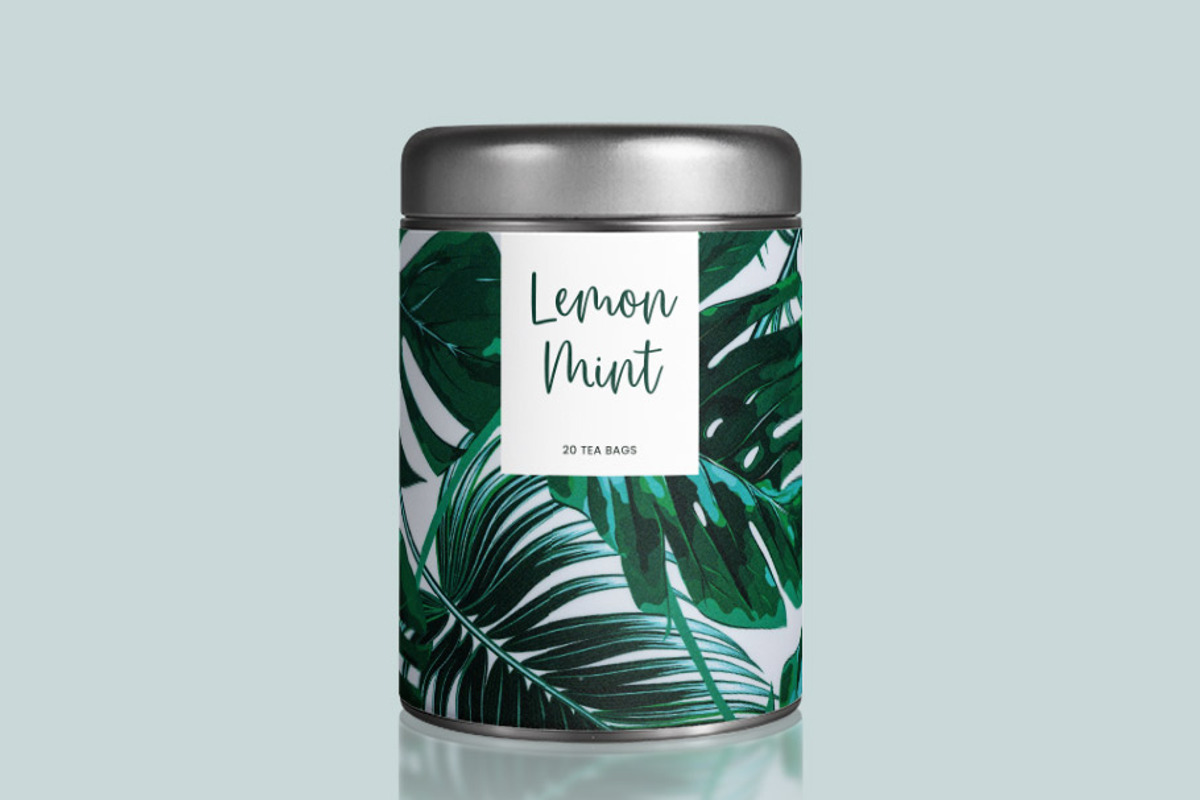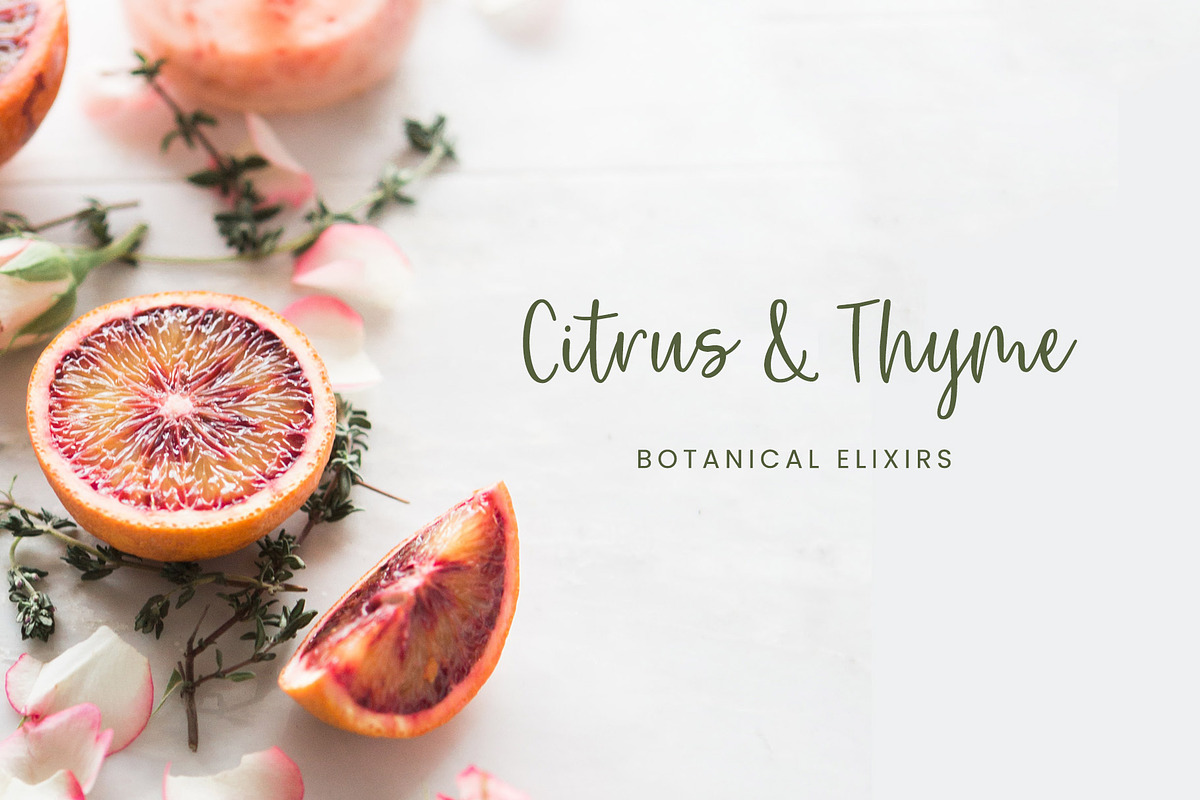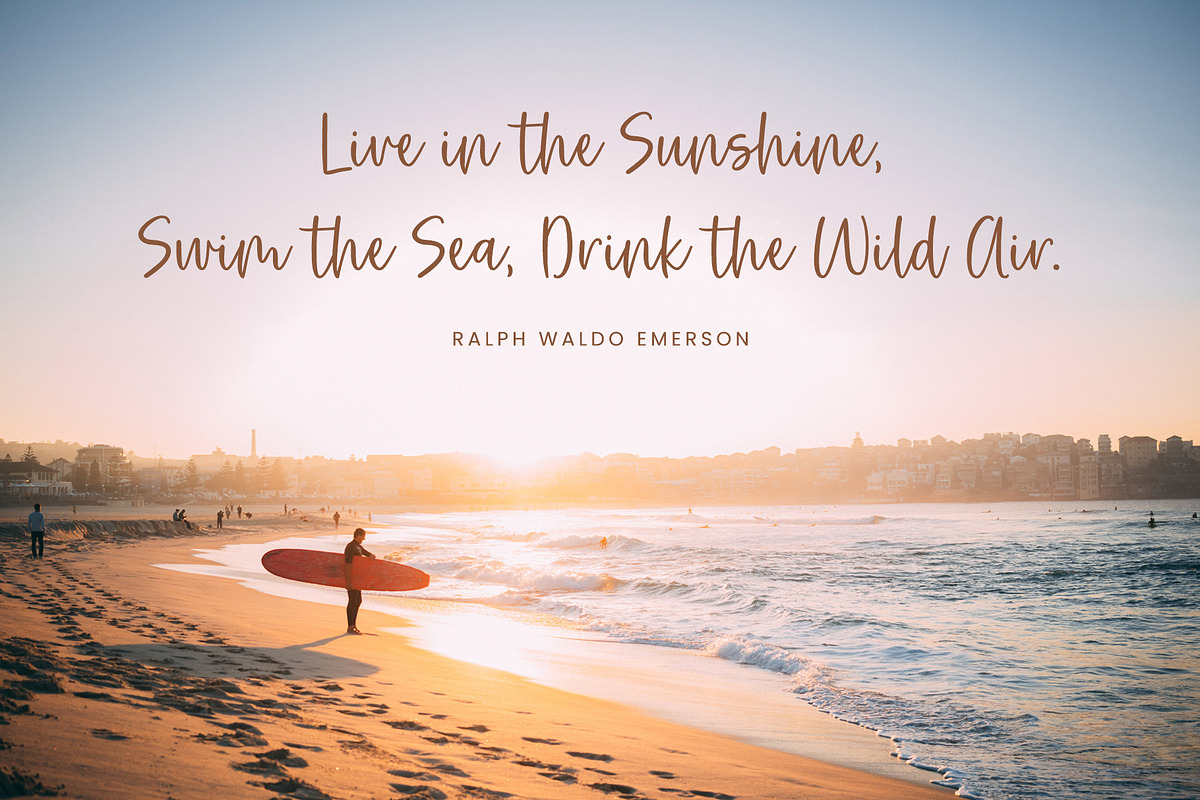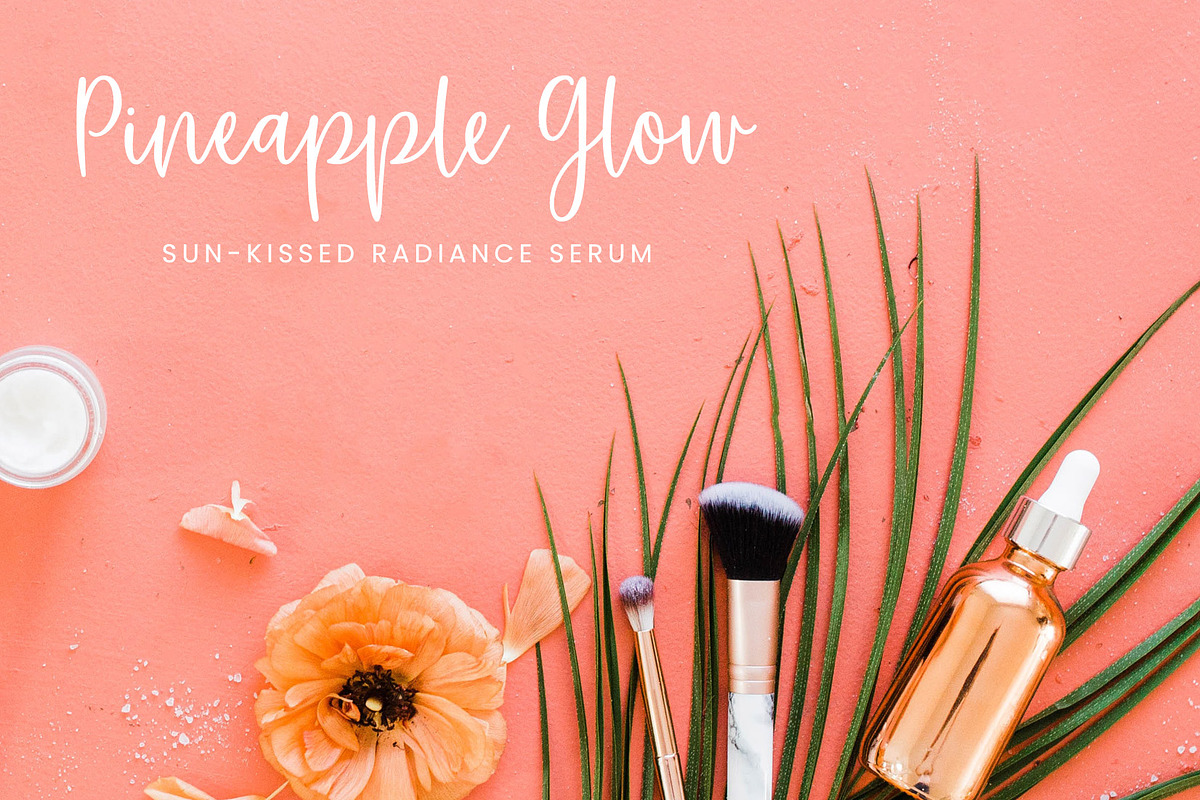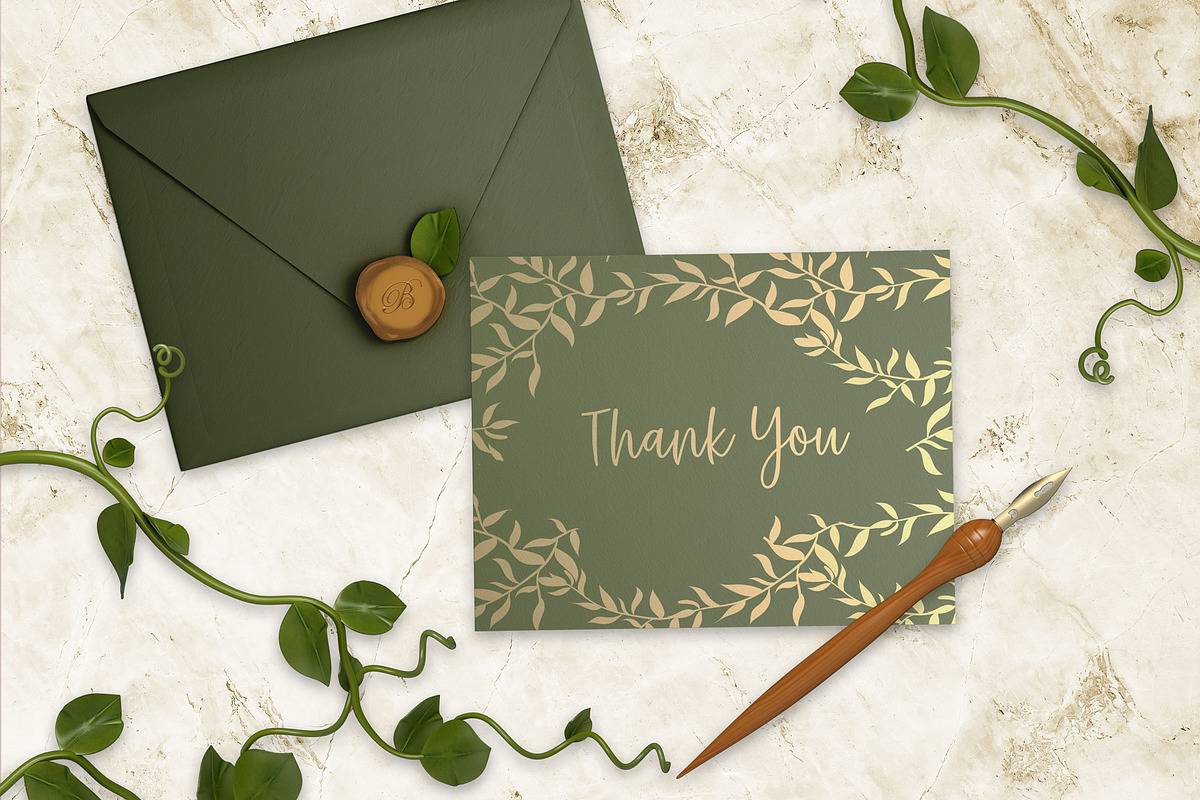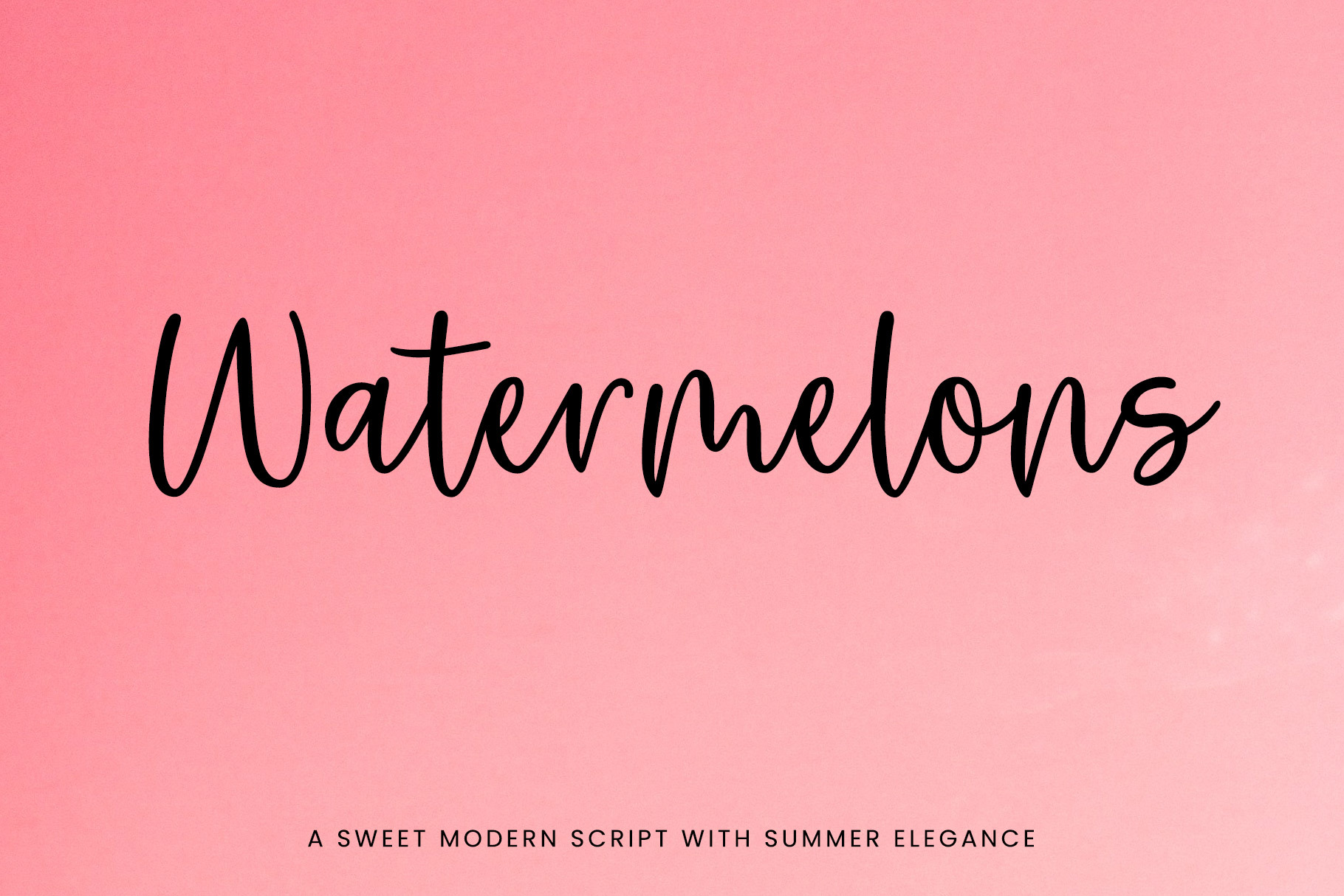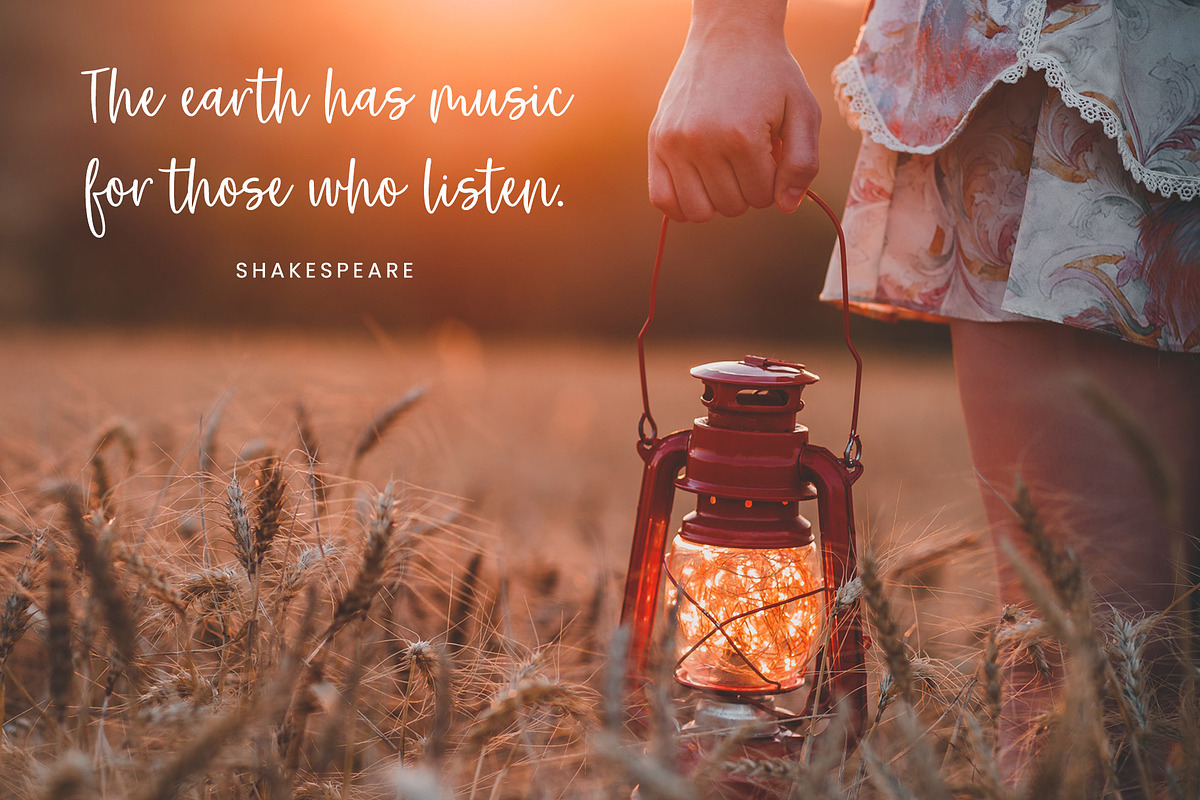
Watermelons Script Font
Watermelons is sweet, bouncy and elegant script font with a smooth signature style. Great for greeting cards, invitations, logo design, branding, packaging, editorial, social media and more! Check out the preview images to see some examples of how to use the font.